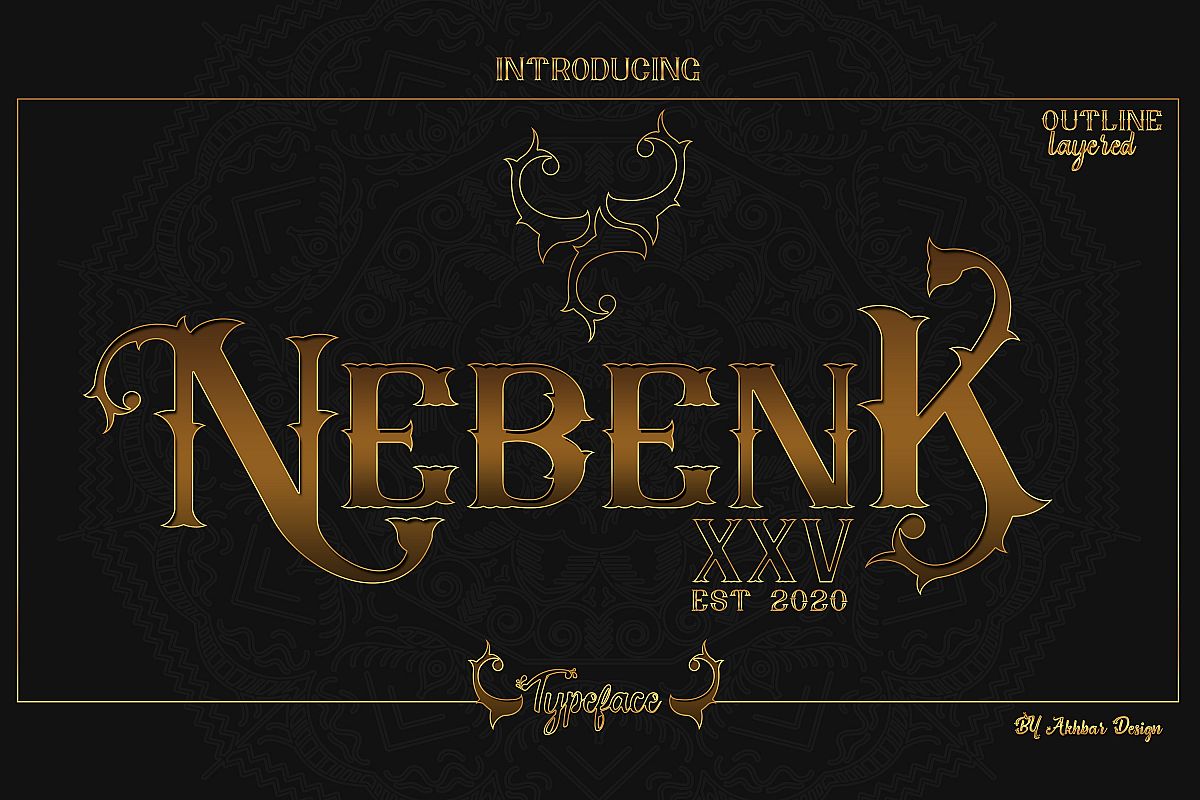
Created By Akhbar Design
Nebenk XXV
Nebenk XXV features a classic set of characters. This vintage display font looks incredibly beautiful, elegant and luxurious!